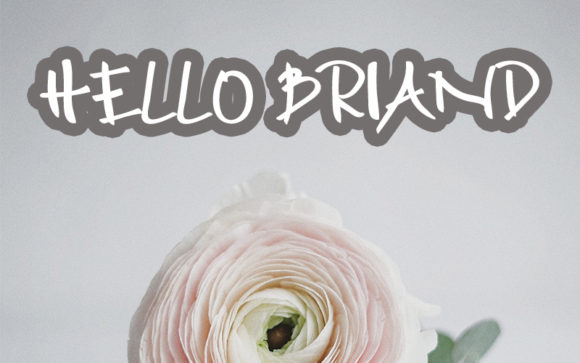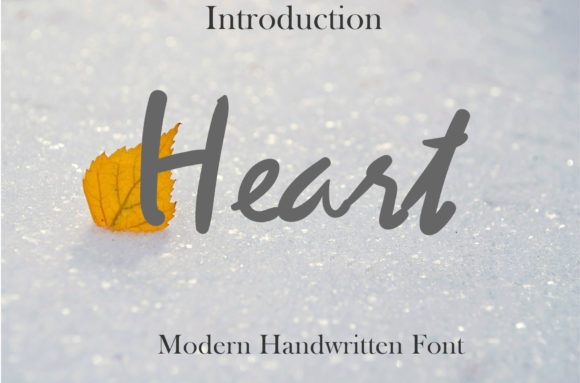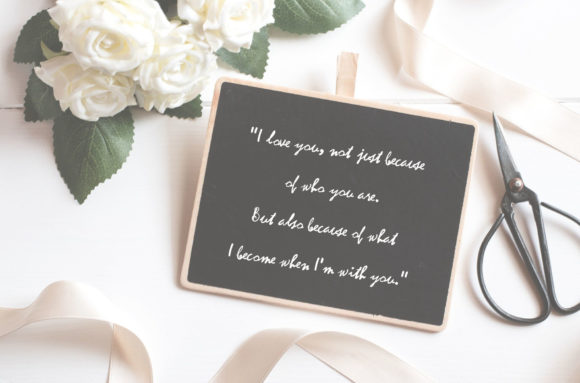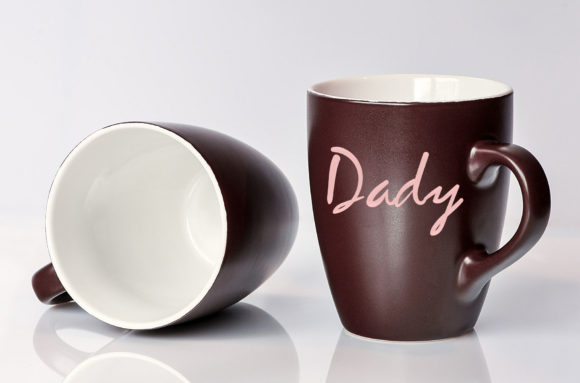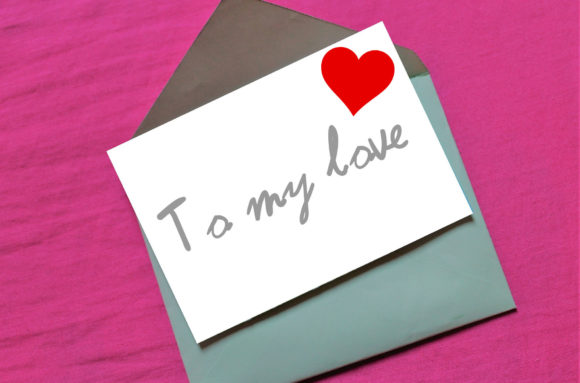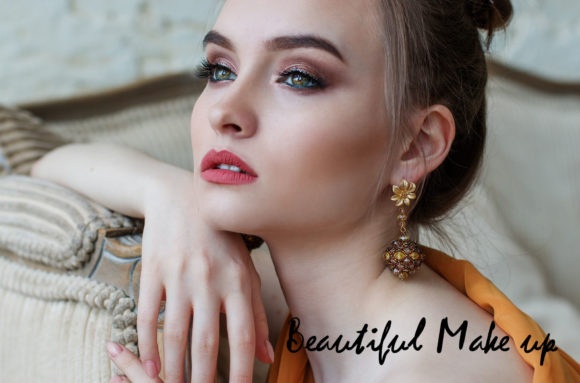
Heart Font
About Heart Font
Heart is a beautiful and delicate script font. Featuring characters that dance along the baseline, this font will add a luxury spark to any design project that you wish to create!